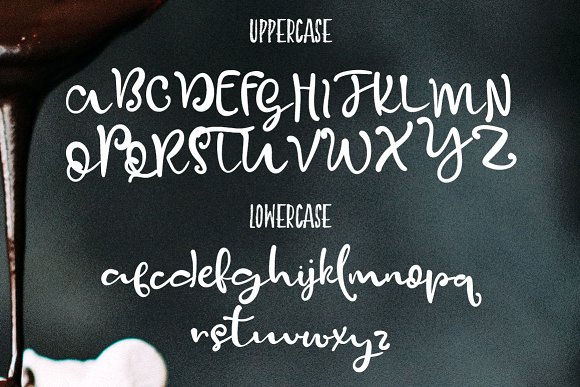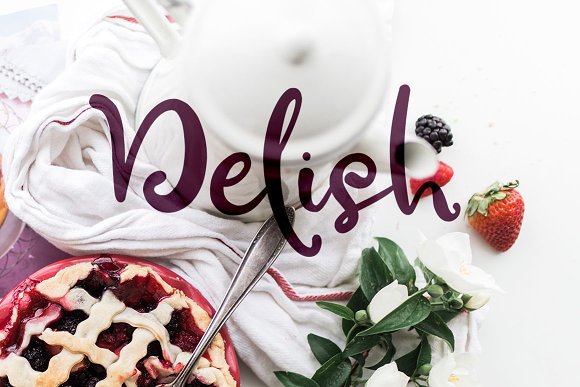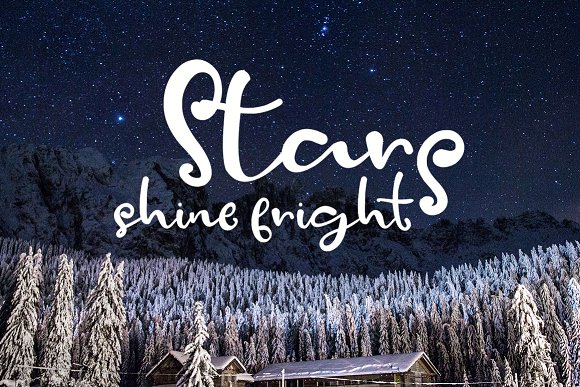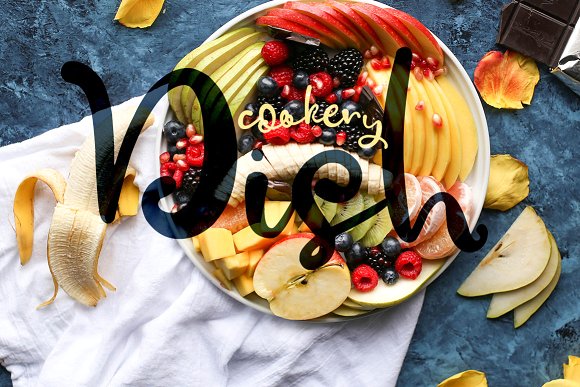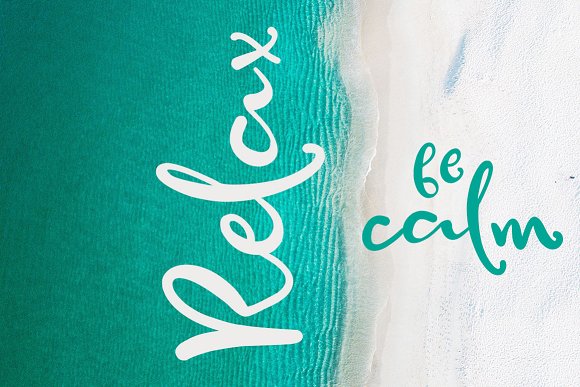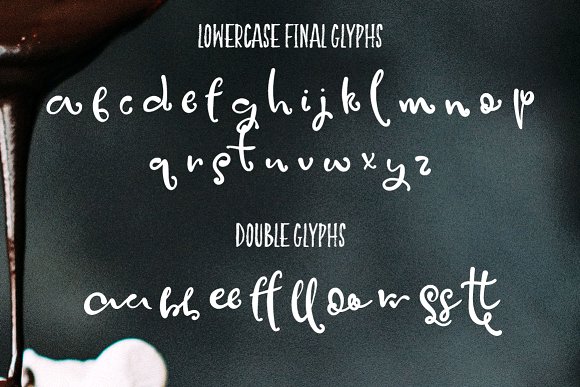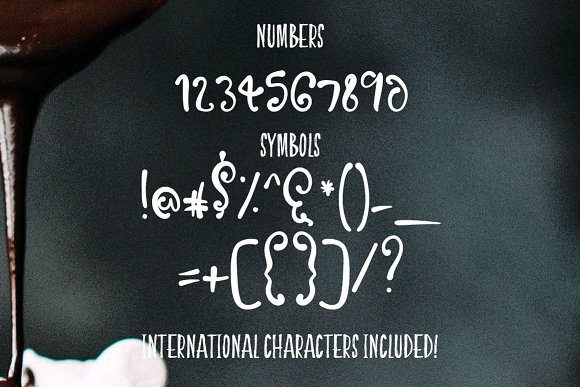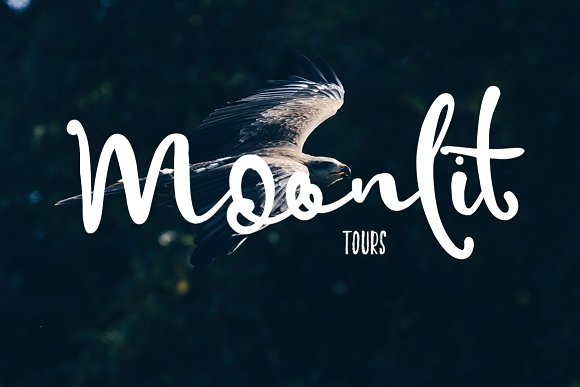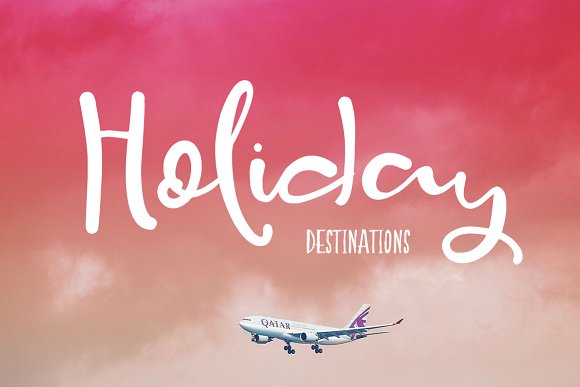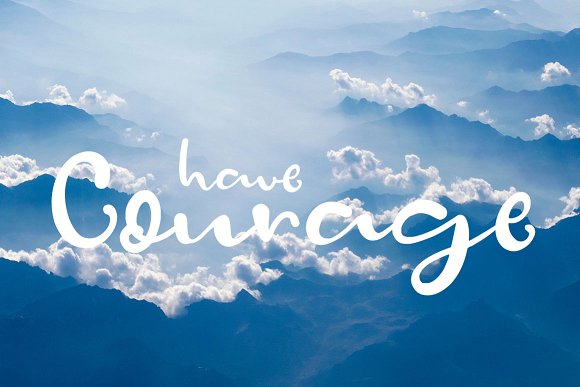
HomeScript FontsSpoonfull Font Script Fonts Spoonfull Font FacebookXPinterestWhatsApp Spoonfull Font Poster 2 Spoonfull Font Poster 3 Spoonfull Font Poster 4 Spoonfull Font Poster 5 Spoonfull Font Poster 6 Spoonfull Font Poster 7 Spoonfull Font Poster 8 Spoonfull Font Poster 9 Spoonfull Font Poster 10 Spoonfull Font Poster 11 Spoonfull Font Poster 12 Spoonfull Font Poster 13 About Spoonfull Font Spoonfull is a beautiful handcrafted font created by Creativeqube. DOWNLOAD ON CREATIVE FABRICAThis font is sold and delivered by Creative Fabrica. Font Canyon may earn a commission if you buy through this link. People also explored Bunny Story Font Dzruik Font History Font Cutey Font Winter Holiday Font Shellomita Font Go California Font Daily Note Font Children Book Kids Font 333 0 TagsSpoonfull Font Previous articleStrike One FontNext articleSpeechless Heart Font LEAVE A REPLY Cancel reply Comment: Please enter your comment! Name:* Please enter your name here Email:* You have entered an incorrect email address! Please enter your email address here Website: Save my name, email, and website in this browser for the next time I comment. Personal Use Free Dandelions Bloom Personal Use Free Read more about this font BD Nokio Personal Use Free Read more about this font Masha Song Personal Use Free Read more about this font Bamboomoe Personal Use Free Read more about this font BLOG Exploring Font Trends Shaping Communication in the Digital Era Fonts, like all design elements, are subject to trends. They play a crucial role in communicating a brand's personality,... How to Install and Use Fonts on Windows, macOS, and Web Projects To increase your work productivity, choose the most readable fonts. The 10 Best Handwriting Fonts to Add Personality to Your Designs